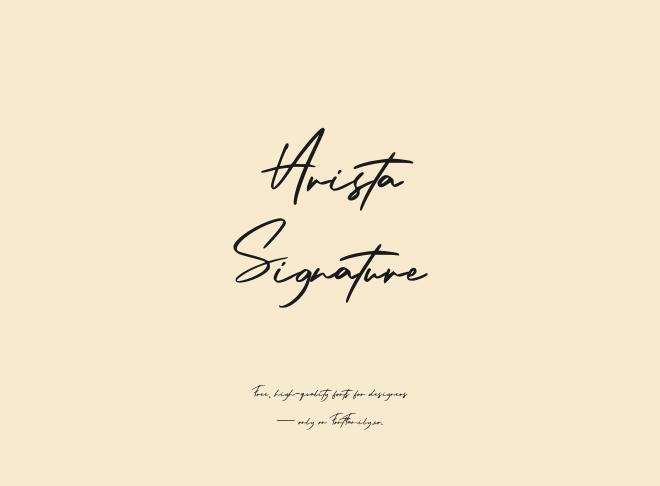
Arista Signature Font
Arista Signature Font is a balanced blend of modernity and elegance, created by Zetafonts. This handwritten script font exhibits a contemporary style with a touch of sophistication, making it perfect for branding, logo design, wedding invitations, and personalized social media posts. Its flowing letterforms exude a sense of creativity and uniqueness, making it stand out from traditional script fonts. Compared to other fonts, Arista Signature Font provides a more personal touch, reflecting the designer's unique style. It is a versatile font that pairs well with both serif and sans serif fonts, offering a broad spectrum of design possibilities. Its blend of modernity and elegance makes Arista Signature Font a great choice for designers aiming to create a unique and memorable design.